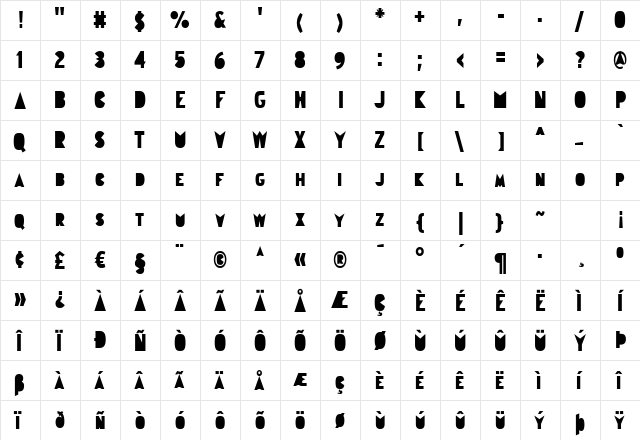
Gudariak Regular
| Foundry | deFharo |
| Designer | Fernando Haro |
Design Context for Gudariak Typeface
Gudariak is a composed and adaptable typeface that performs quietly and consistently across a wide range of design contexts.